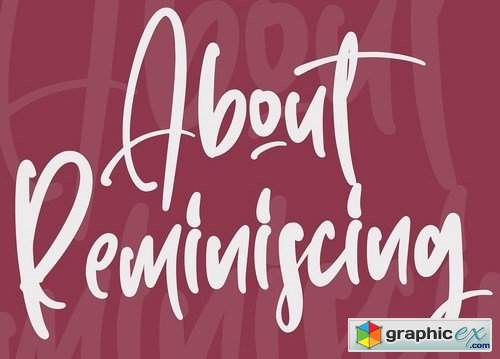
Pottage - Handwritten Font
Introducing a new font called Pottage - Handwritten Font inspired by urban fonts with sharp and beautiful letters that create fonts that are modern, trendy and elegant.